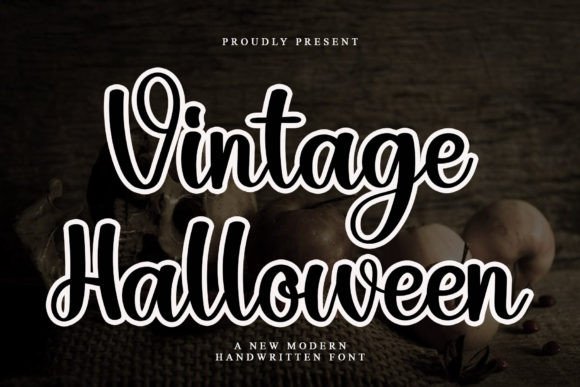
Journey back in time to an era of haunting charm and spine-tingling aesthetics with Vintage Halloween, a captivating script font that conjures the essence of a bygone All Hallow's Eve. Bathe your designs in a shroud of mystery and intrigue, allowing your words to dance across the page like a mischievous sprite.
Crafted with meticulous attention to detail, Vintage Halloween exudes a timeless elegance that complements both modern and retro aesthetics. Its carefully balanced curves and striking contrasts evoke a sense of nostalgia and wonder, while its impeccable form ensures readability and visual appeal.
Allow your designs to transcend the mundane and embrace the extraordinary with Vintage Halloween. Whether you're crafting spellbinding posters that whisper tales of haunted houses and cackling witches, or designing invitations that invite guests to a night of spooky revelry, this font will cast a magical spell on your projects.
Unlock the font's full potential with its extensive character set, granting you access to a myriad of glyphs and ligatures that elevate your designs to new heights. Unleash your creativity and let your imagination run wild as you conjure enchanting logos, mesmerizing social media graphics, and captivating website designs.
Let Vintage Halloween be your font of choice for conjuring an atmosphere of delightful eeriness and otherworldly charm. Experience the thrill of transforming ordinary words into extraordinary works of art, leaving your audience spellbound and eager for more. Embrace the spirit of Halloween and let your designs radiate an otherworldly allure.